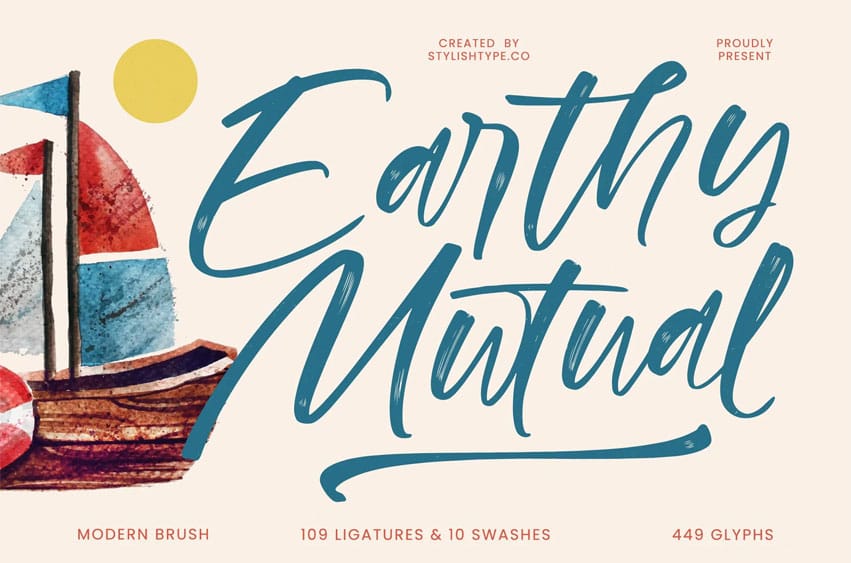
Earthy Mutual Font is a modern brush script font with organic strokes, textured movement, and a warm handcrafted feel that adds authenticity and personality to every design. Inspired by natural brush lettering with expressive rhythm, this typeface is ideal for branding, packaging, posters, lifestyle graphics, social media content, invitations, and creative projects that need a relaxed yet stylish handwritten aesthetic.
With 109 ligatures, 10 swashes, and 449 glyphs, Earthy Mutual offers a versatile set of expressive options, making it perfect for designers who want a natural, artistic, and visually engaging script font.